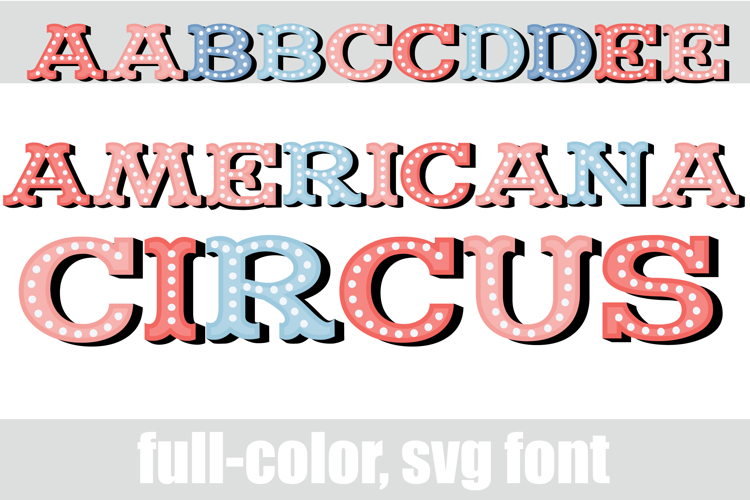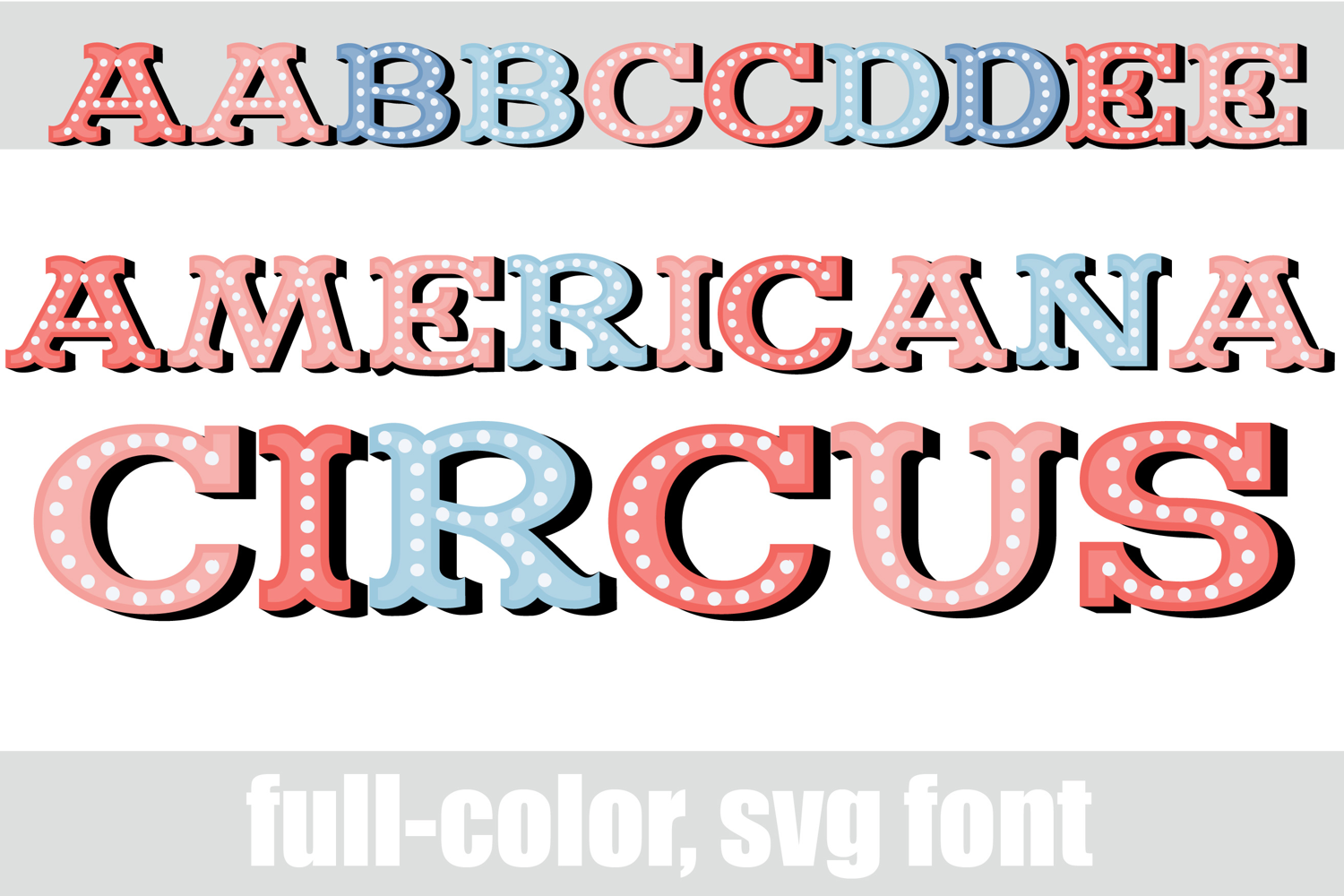
Americana Circus Too Color Font
This full-color, circus-style font is in a pastel patriotic color palette. There is an alt case of additional colors of each letter that you can access through your system's character map.